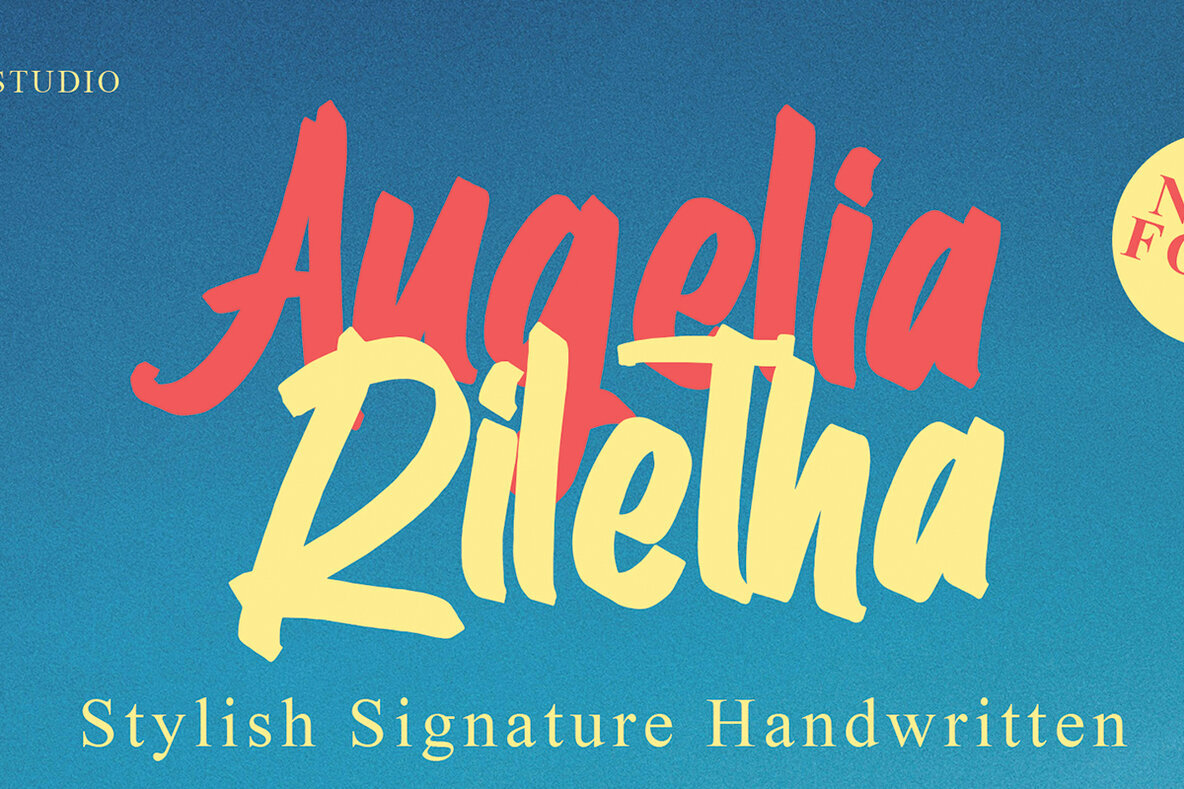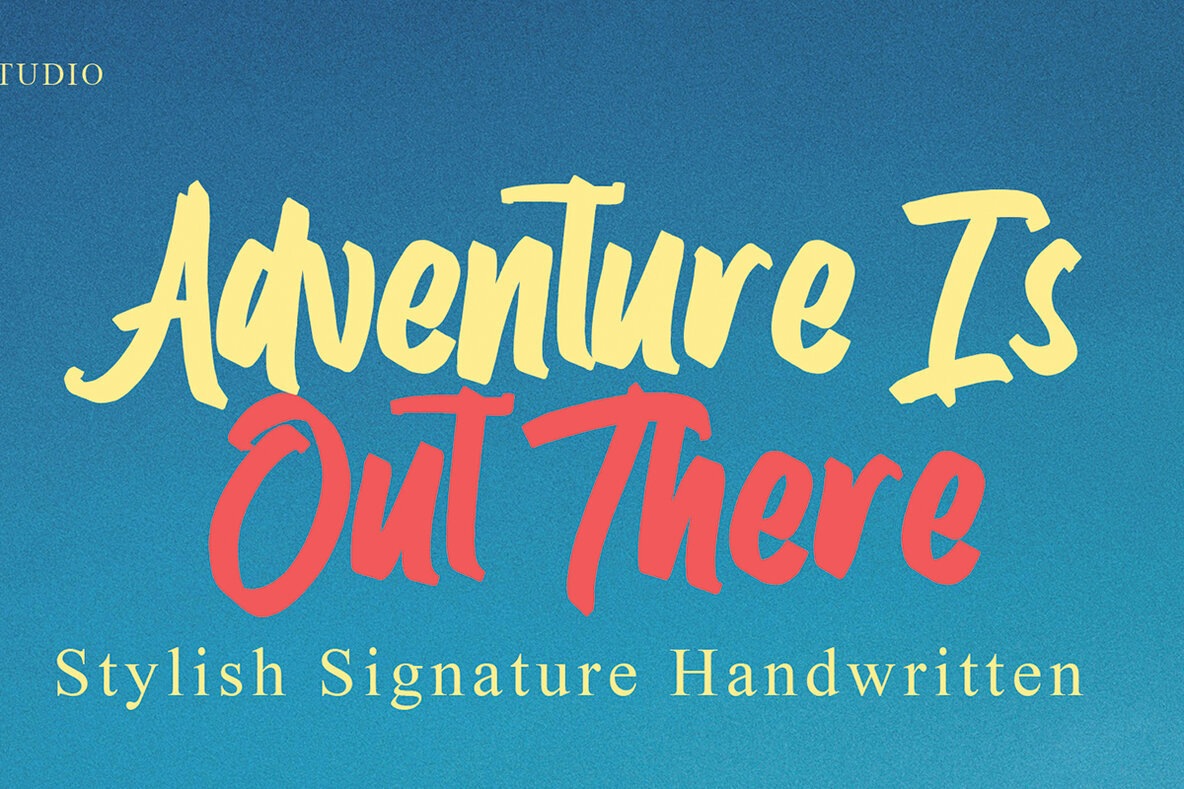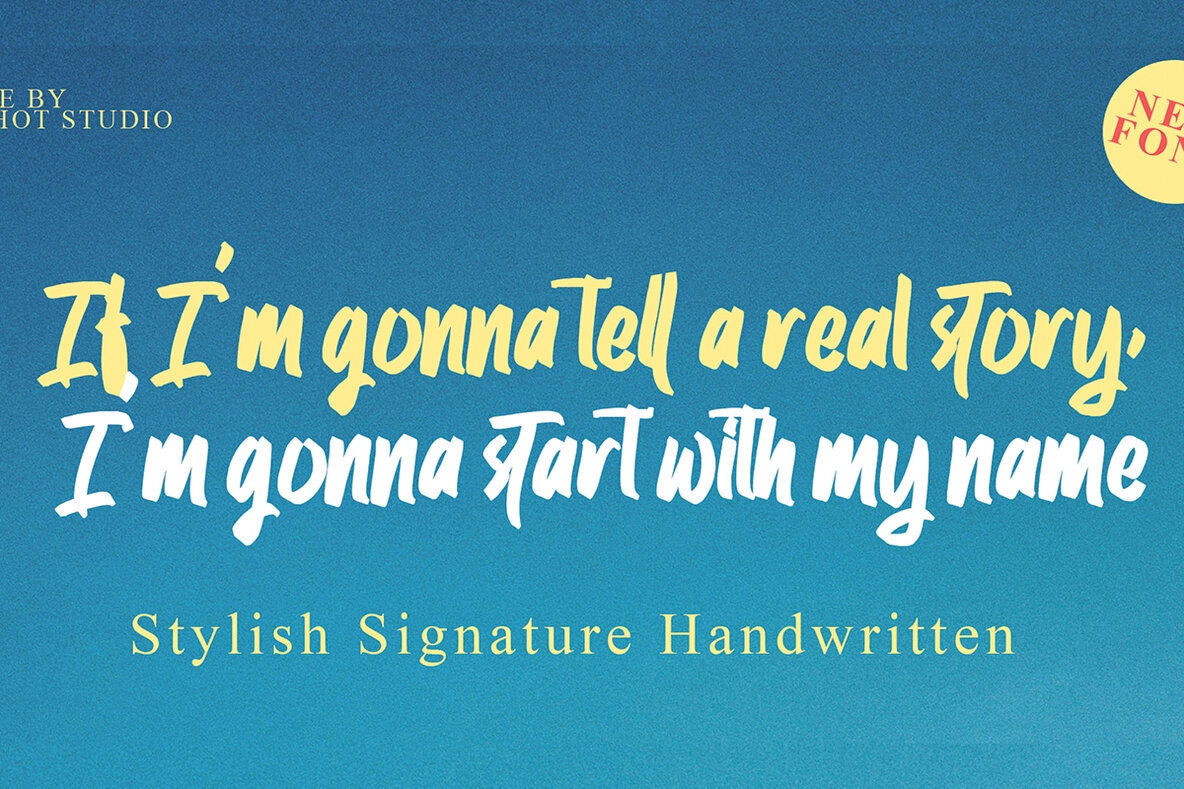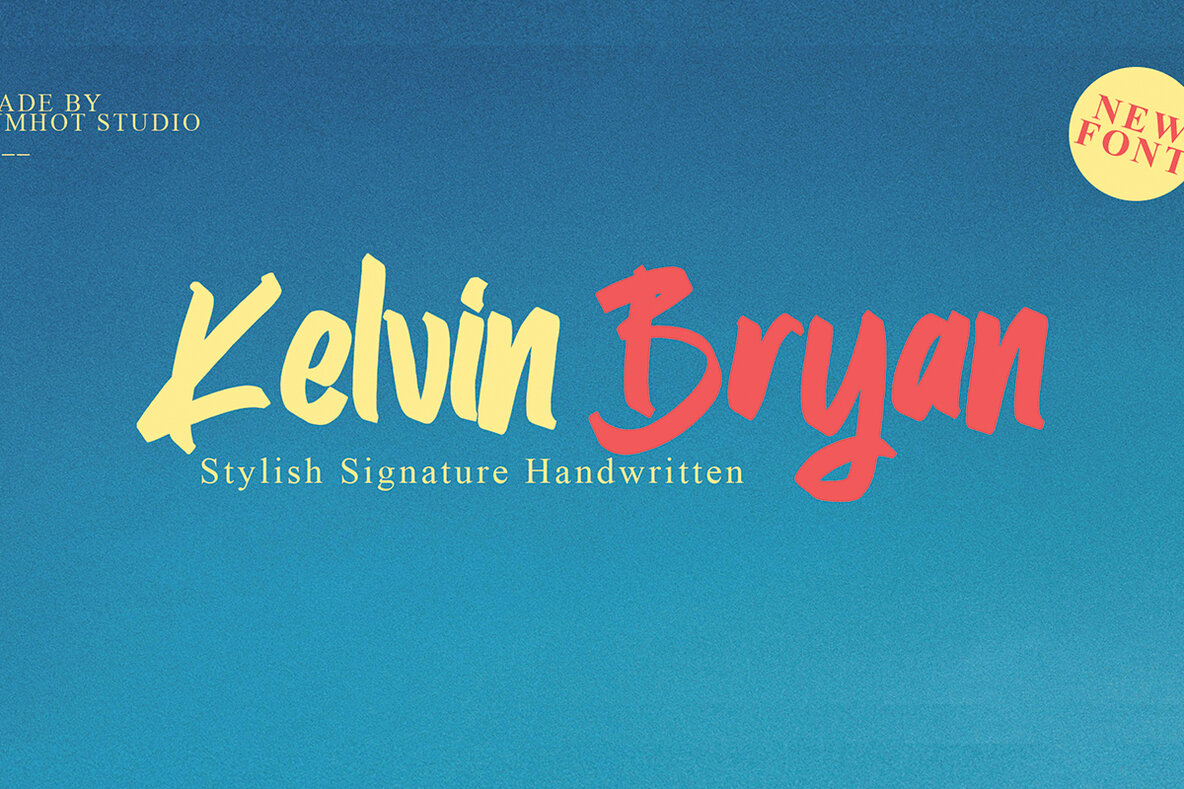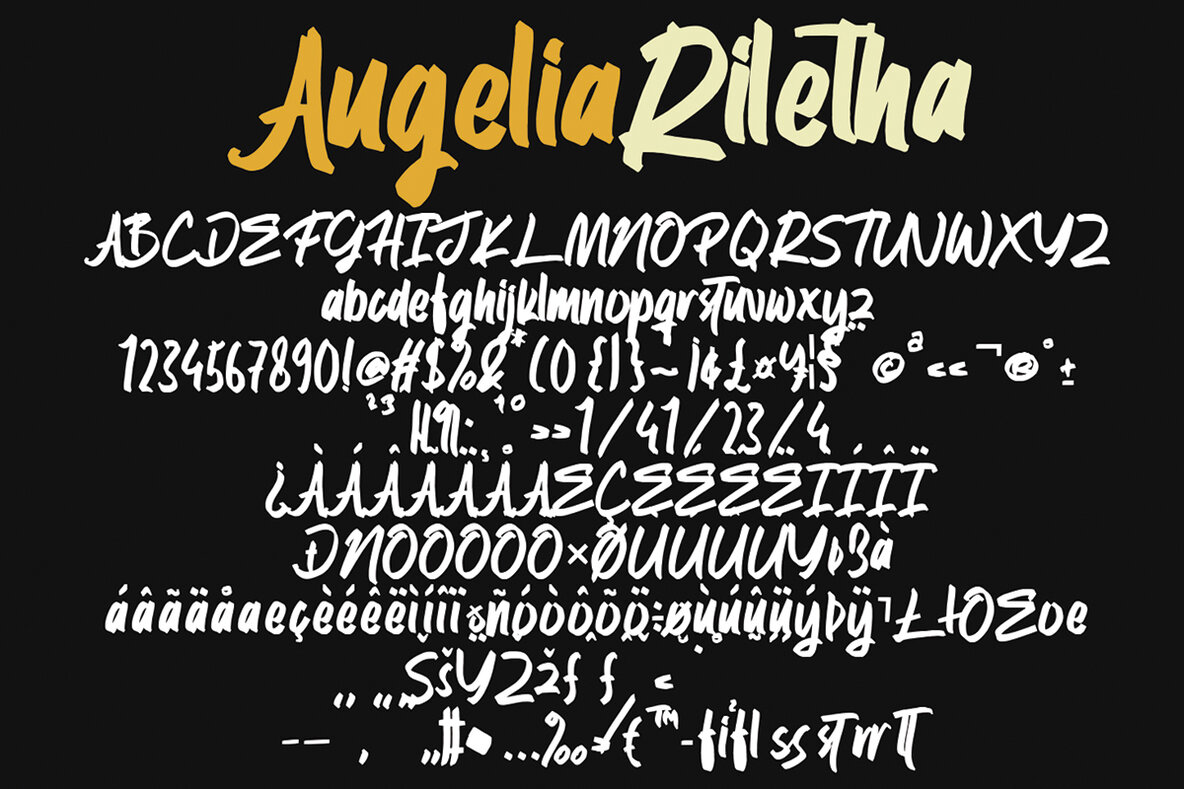
Augelia Riletha Font
Augelia Riletha
Augelia Riletha introduces a fresh style designed to add character to a wide range of design projects. With its versatile and sophisticated look, this font adapts seamlessly to both modern and classic layouts. Whether you're working on a quote, logo, blog header, or poster, Augelia Riletha offers a balanced combination of elegance and readability. Augelia Riletha is crafted to support creative professionals seeking reliable letterforms for every application. Its design ensures your work stands out with clarity and style, providing reliable impact across digital and print mediums.Augelia Riletha: Distinctive Typeface for Creative Projects
Perfect for Multiple Uses